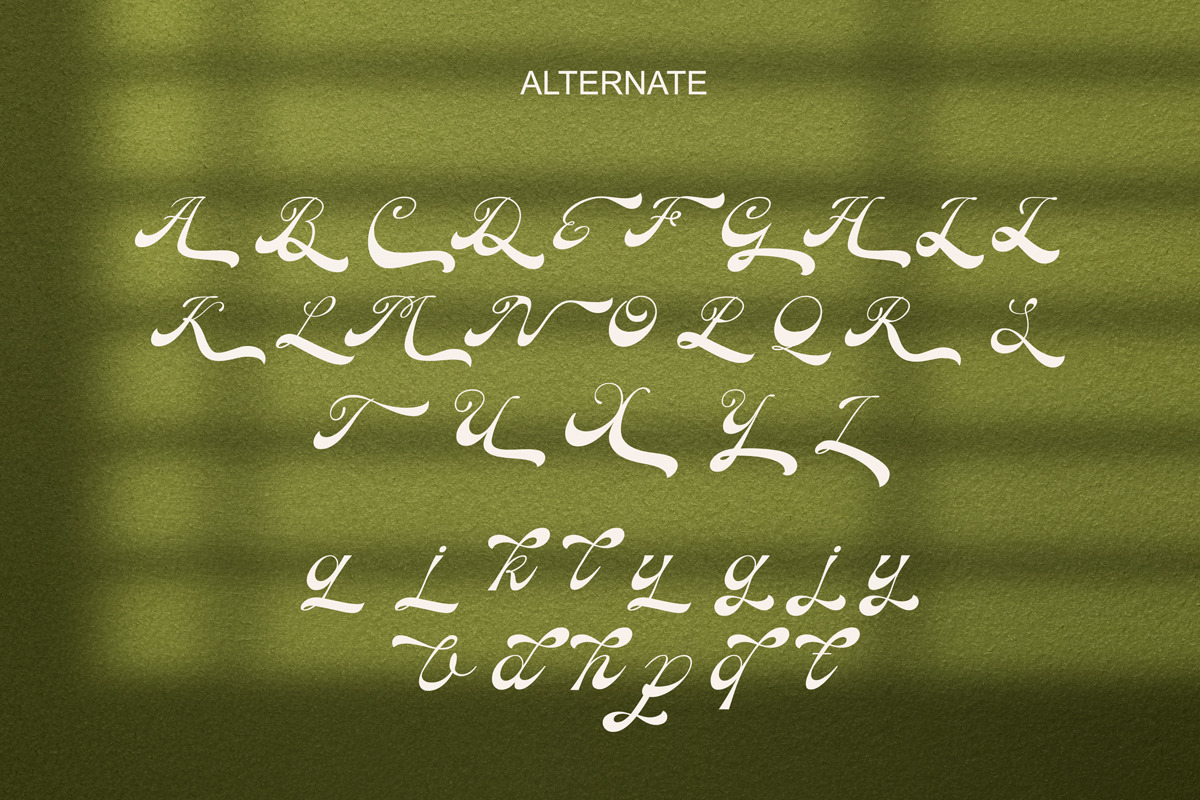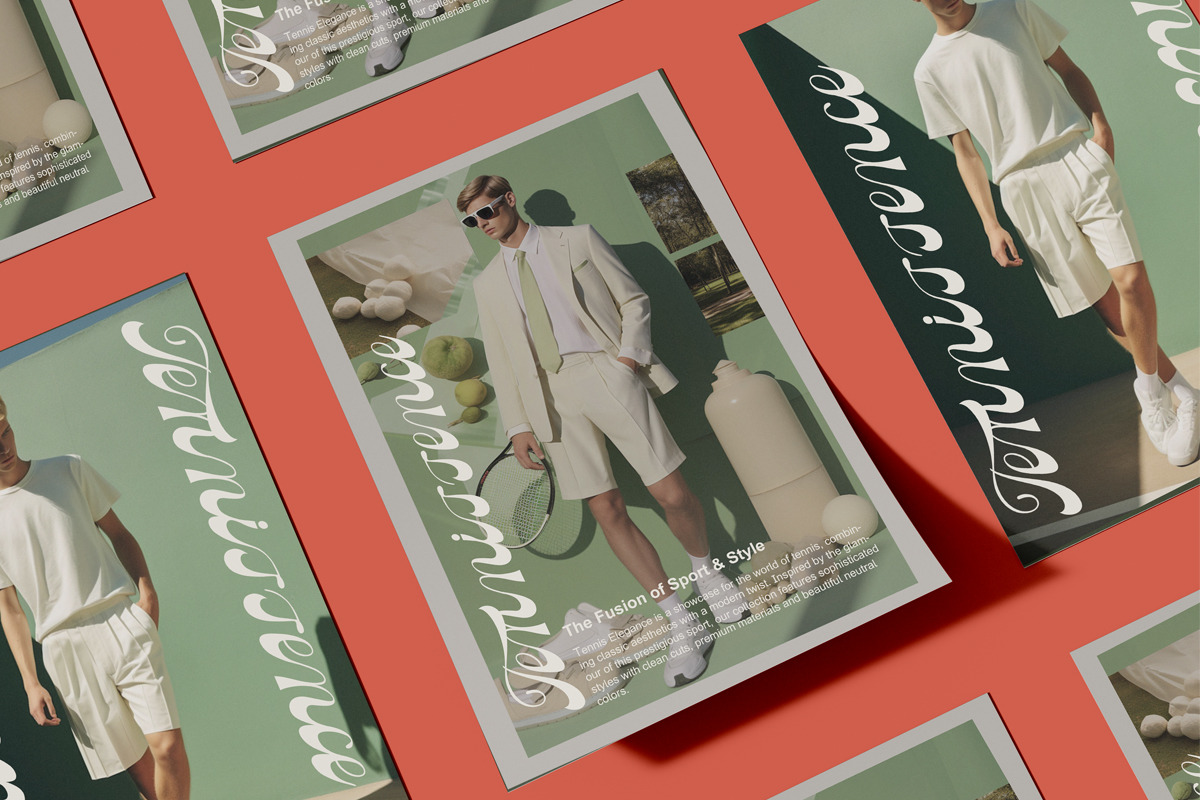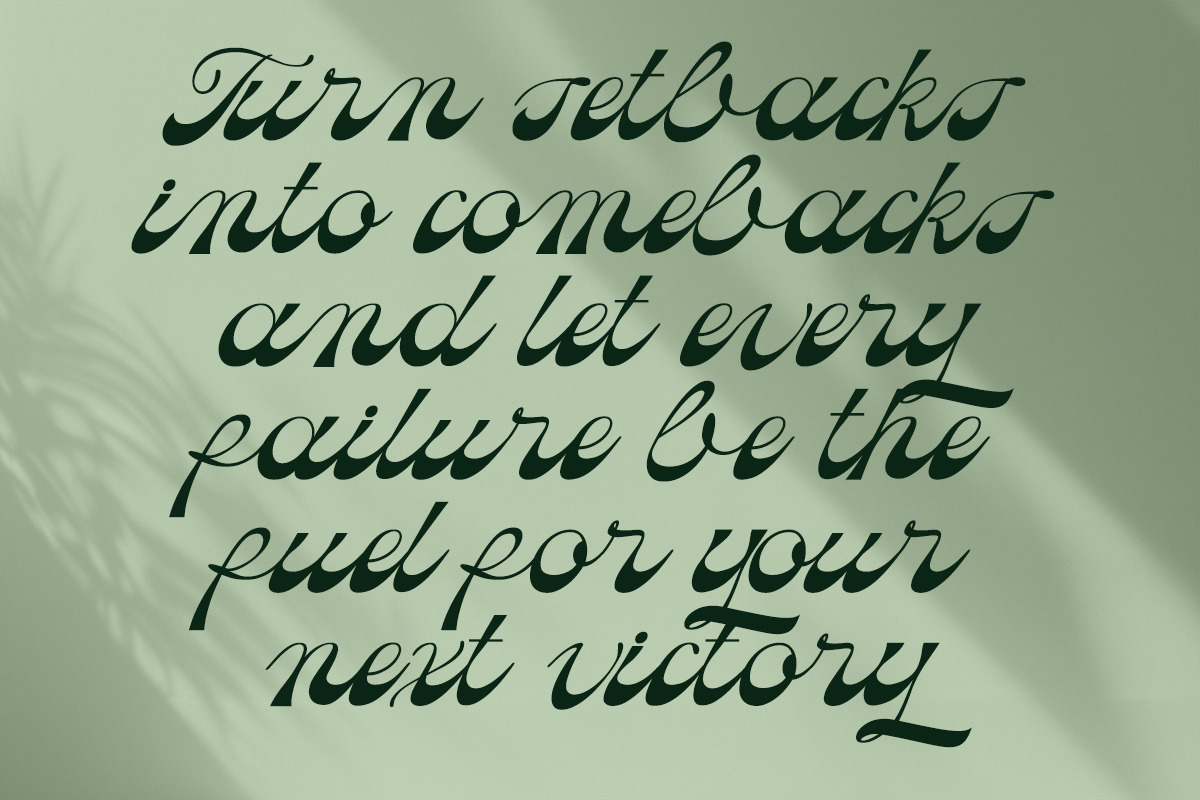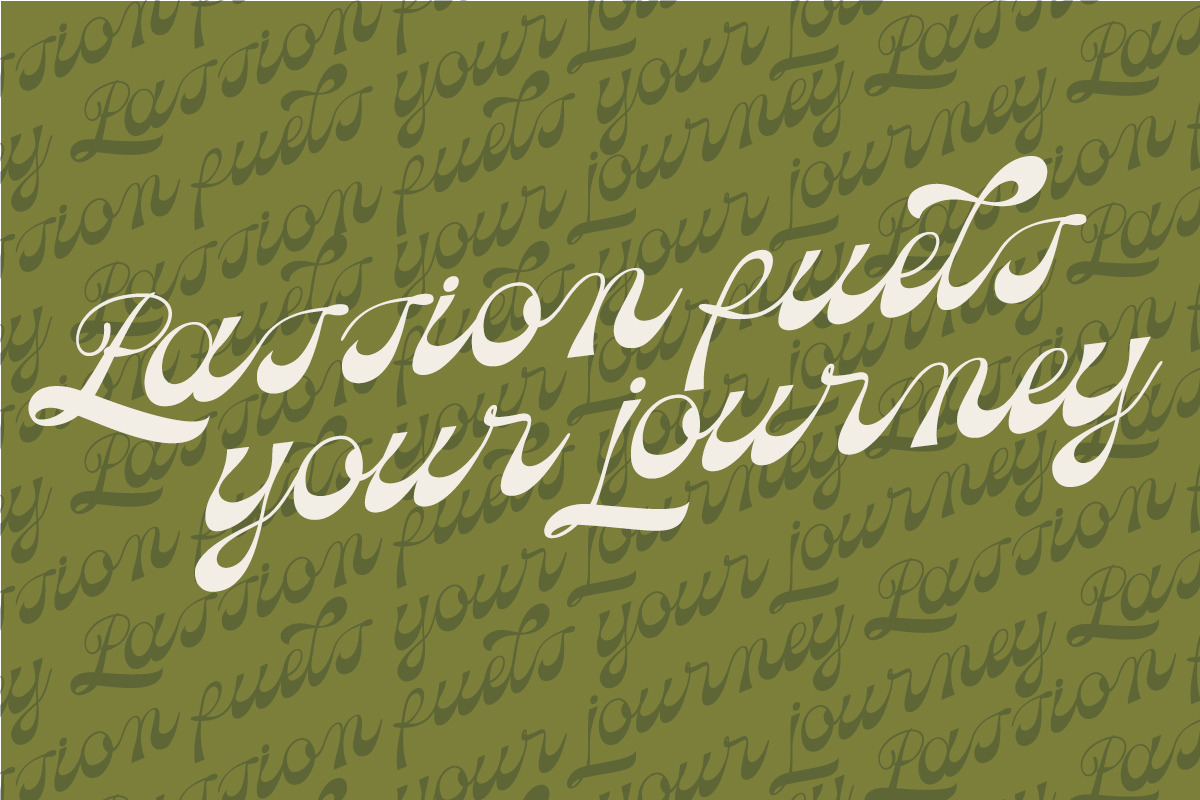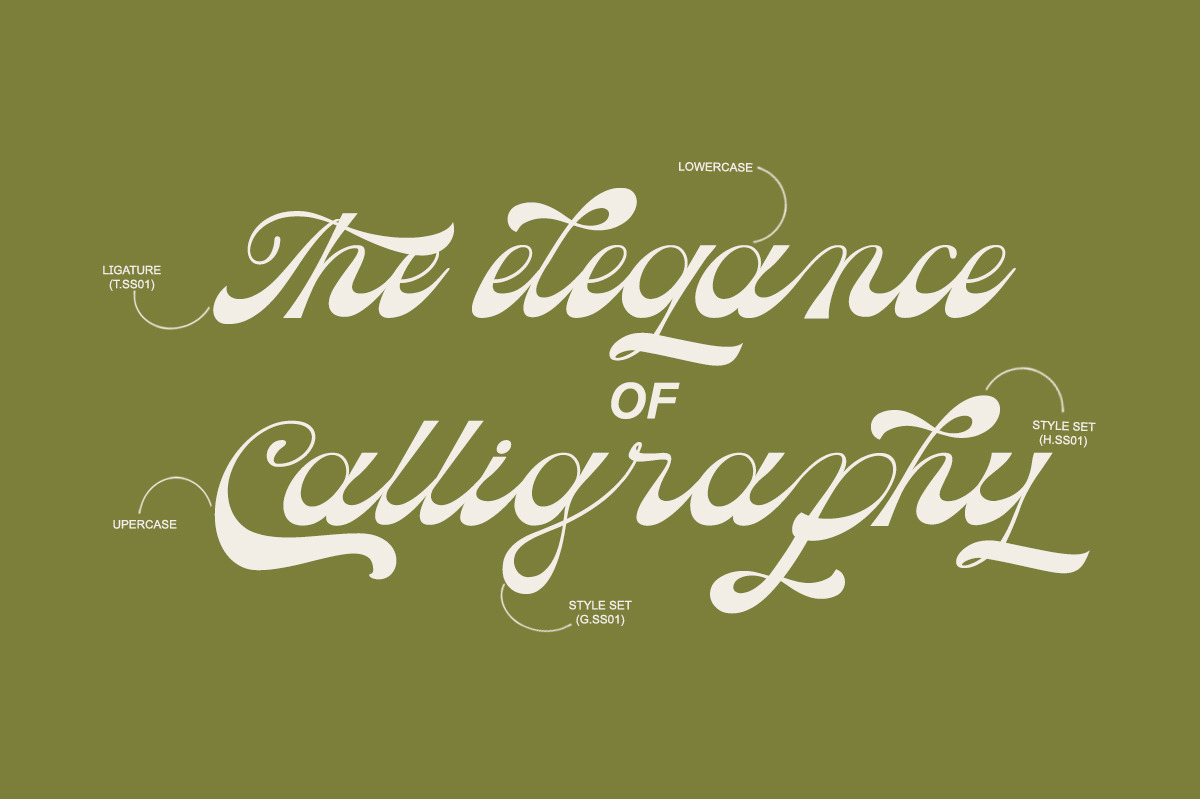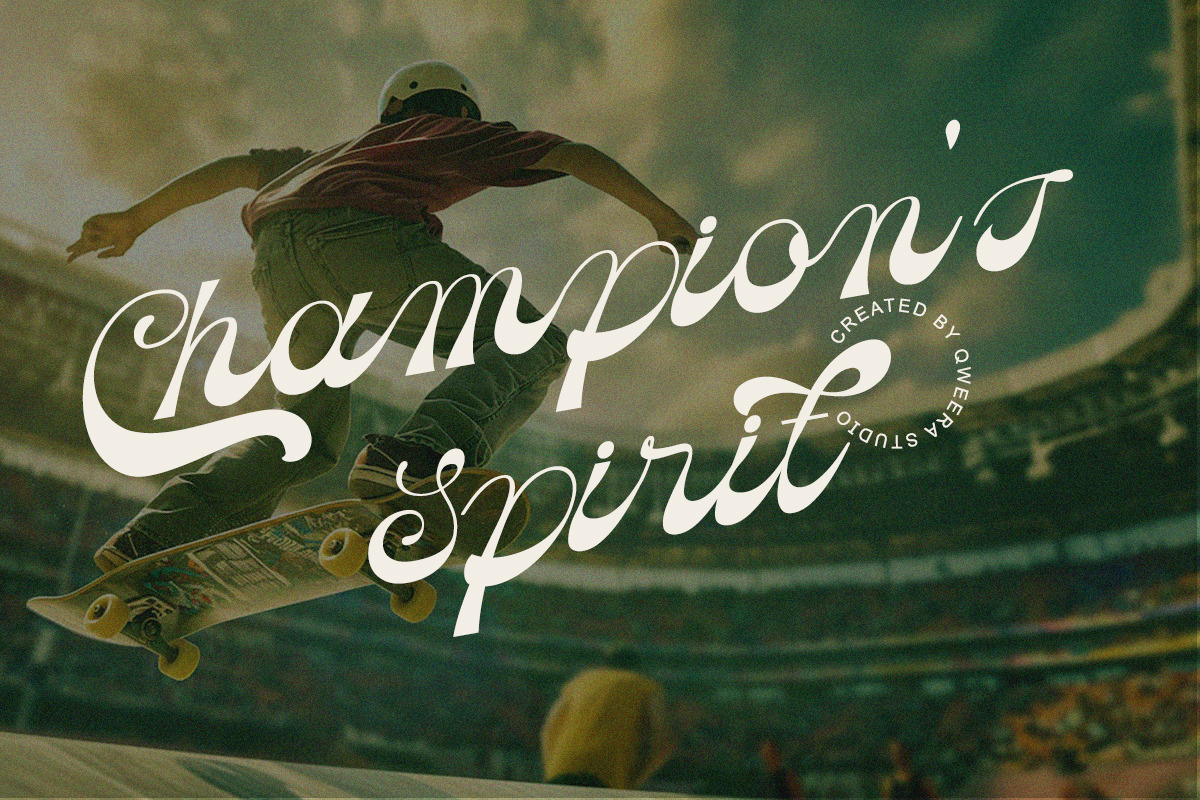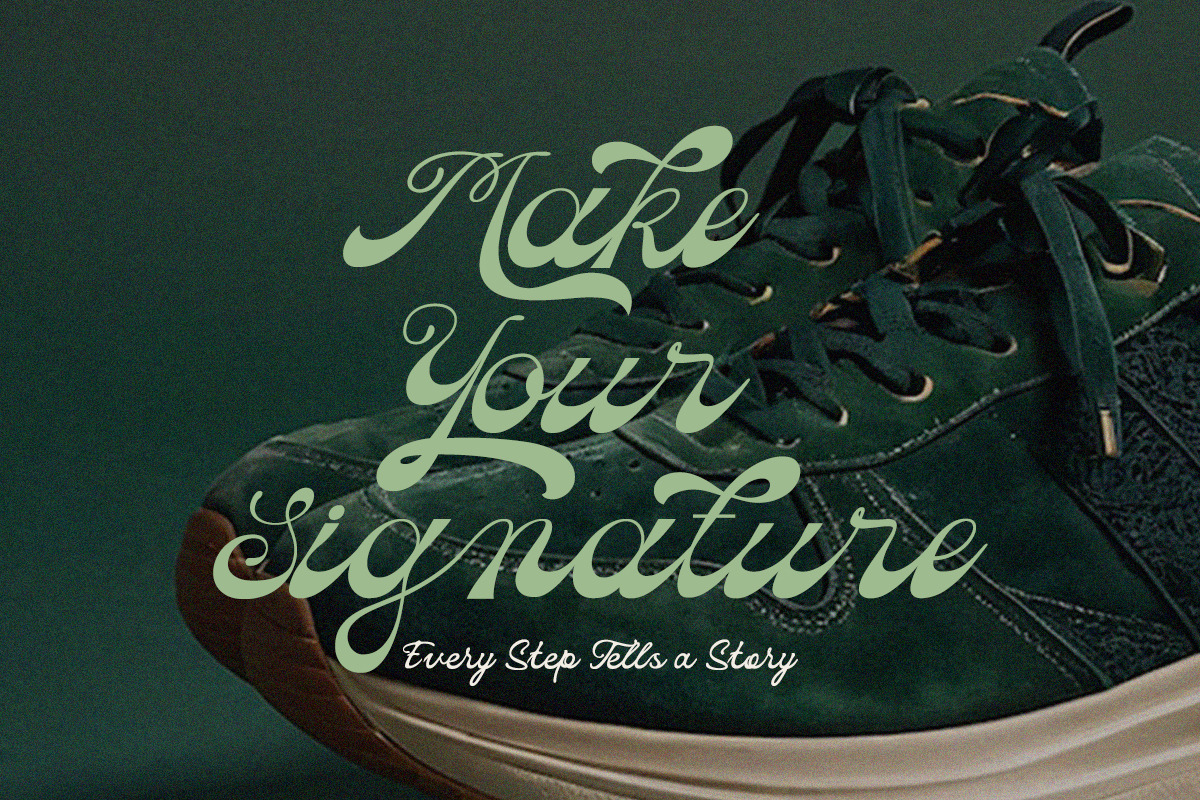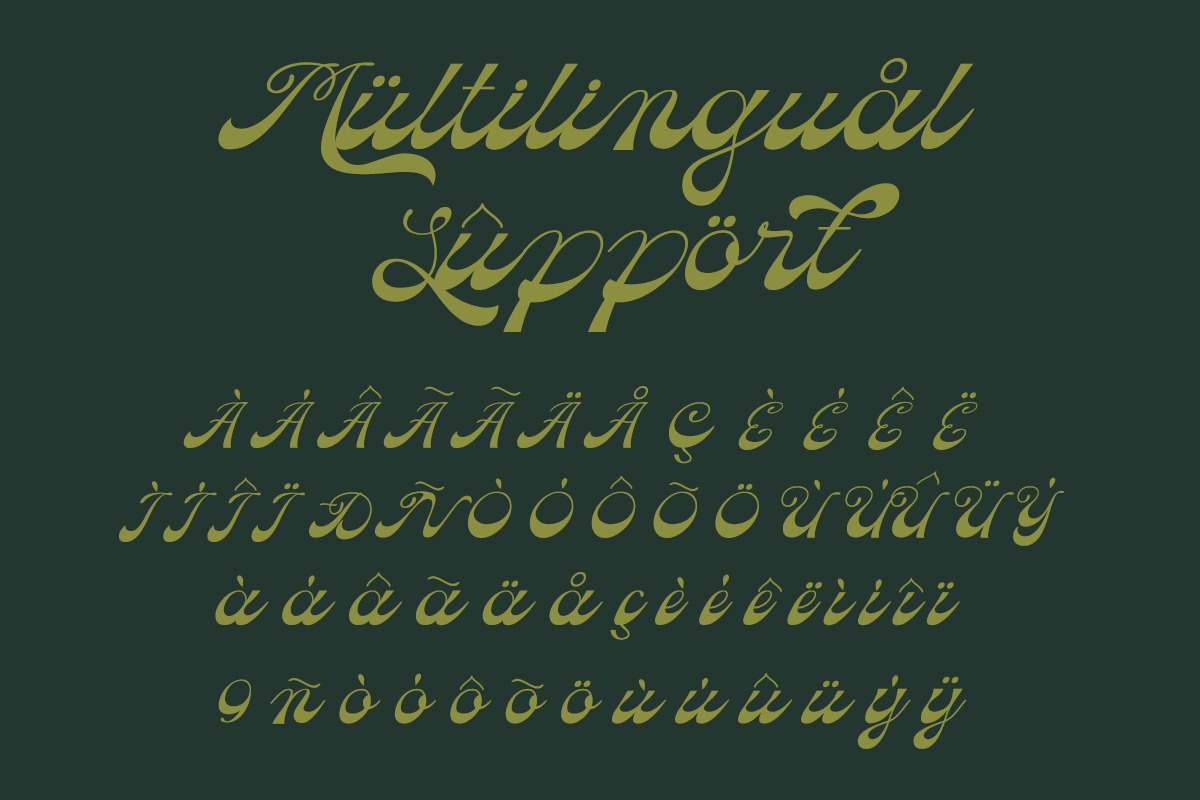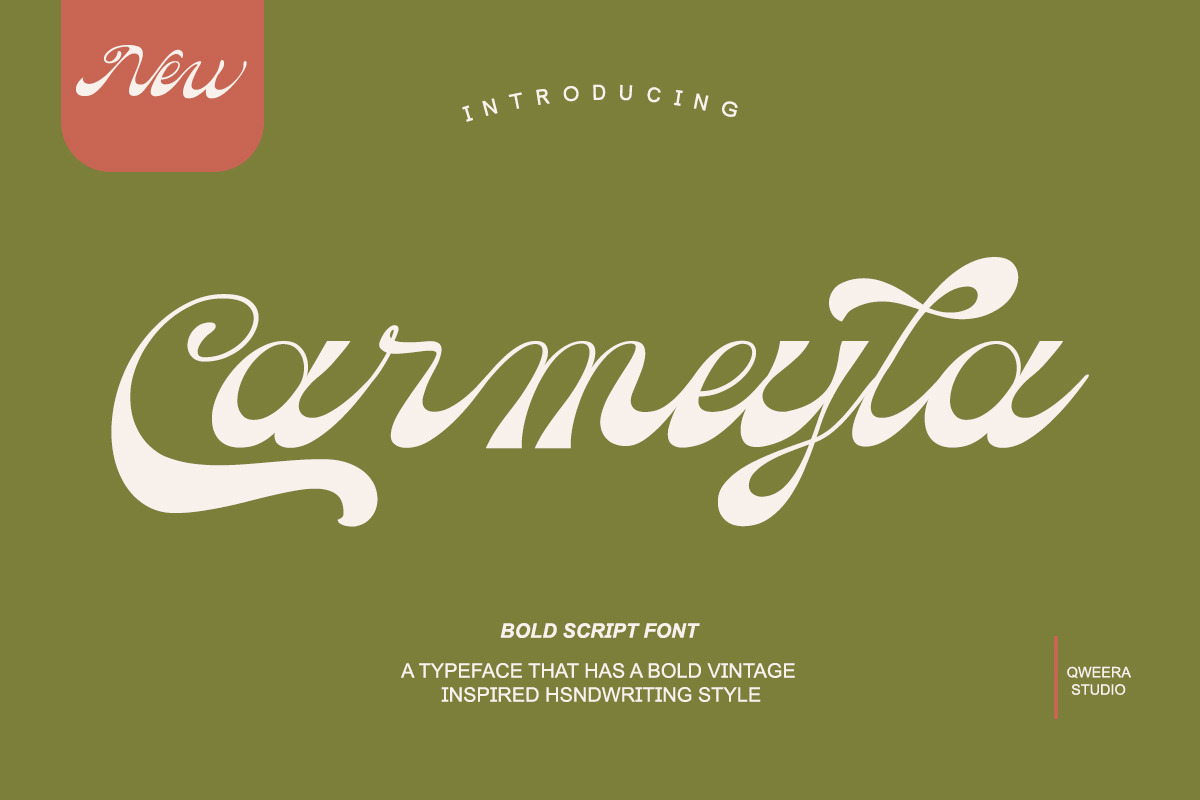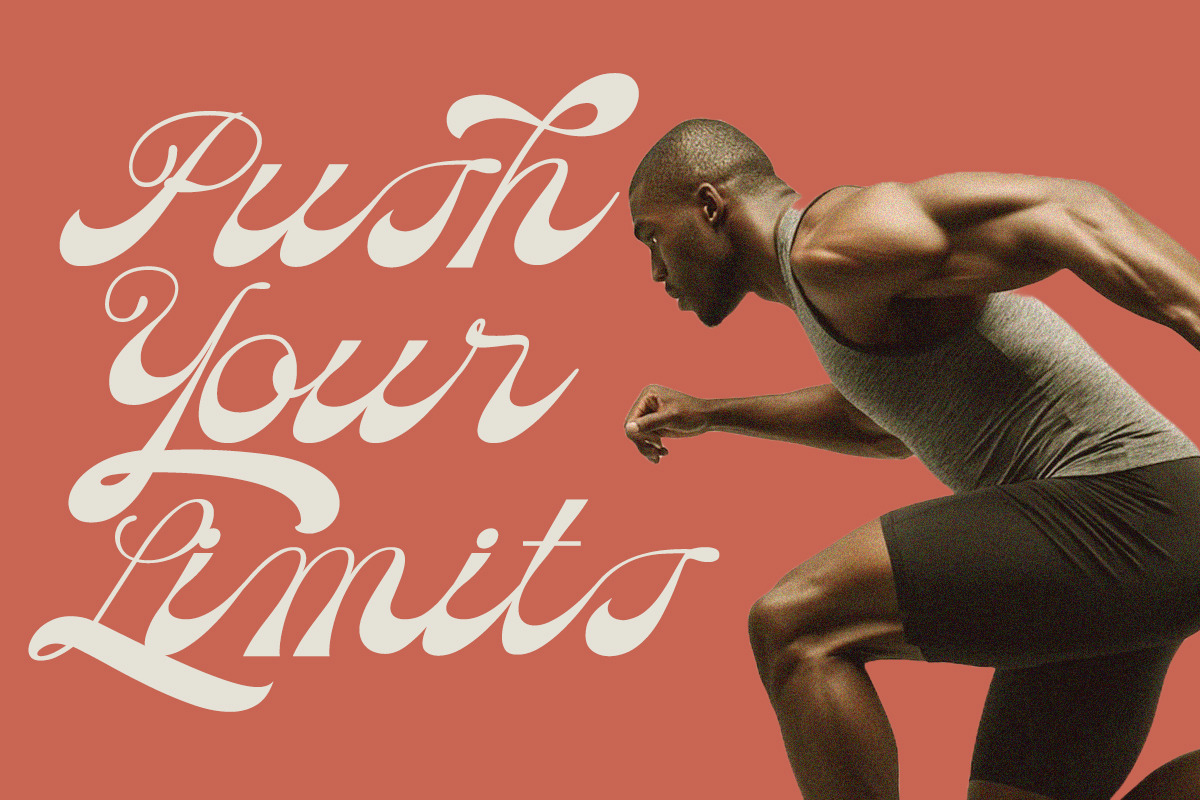
Carmeyla - Bold Script Display Font
Carmeyla – Bold Script Display Font for Standout Designs
Carmeyla is more than just a font—it’s a bold script display typeface designed to make your designs stand out with confidence and style. Featuring stylish alternates, this font offers flexibility to create unique and eye-catching designs effortlessly. Whether you’re working on branding, logo design, packaging, posters, or other creative projects, Carmeyla ensures your work radiates energy and creativity.
Where Boldness Meets Creative Versatility
Carmeyla stands out with its bold script design and stylish alternates, offering endless creative possibilities. Its versatility makes it ideal for projects that demand a bold and artistic aesthetic, from corporate branding to creative packaging and posters. This font isn’t just a tool—it’s a statement of creativity and individuality.
- Bold Script Display Design – Perfect for branding, logo design, packaging, and posters.
- Stylish Alternates – Add a unique and creative touch to your designs.
- Bold and Artistic Aesthetic – Ensures your projects stand out with confidence and style.
- Multilingual Support – Compatible with over 20 languages, including English, French, German, Spanish, and more.
Elevate Your Designs with Carmeyla
Carmeyla isn’t just a font—it’s a tool to transform your creative projects into bold, standout masterpieces. Whether you’re designing for print, digital, or branding, this font ensures your work stands out with confidence and creativity.